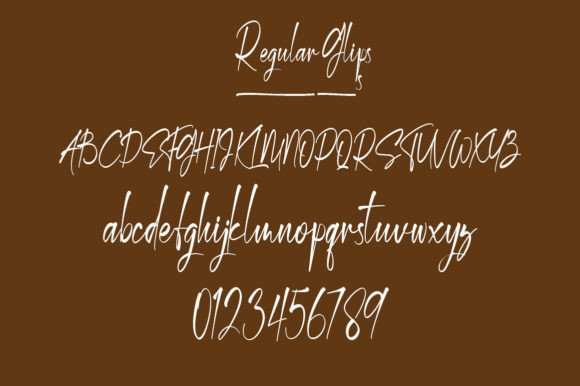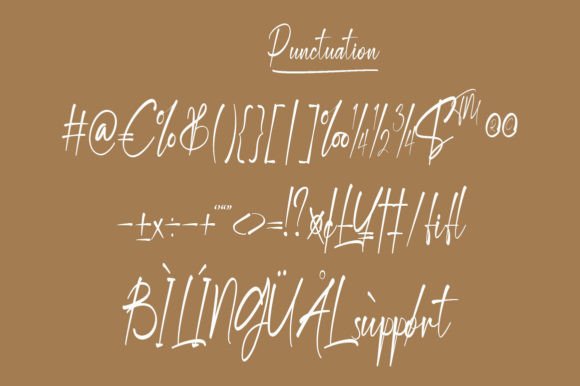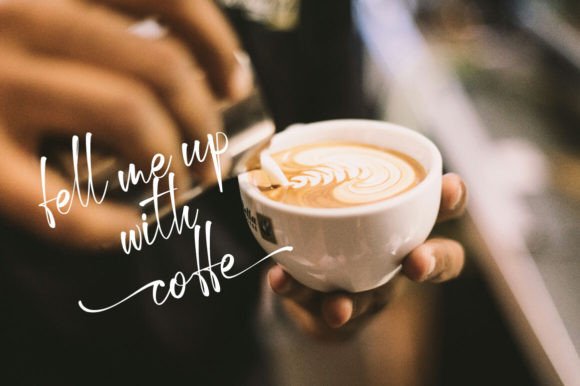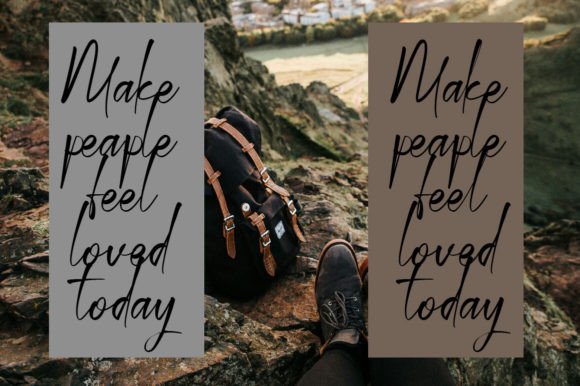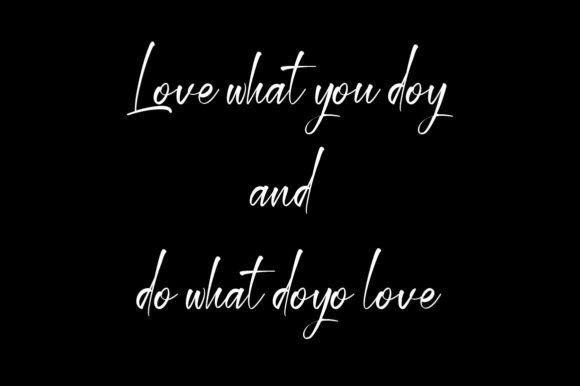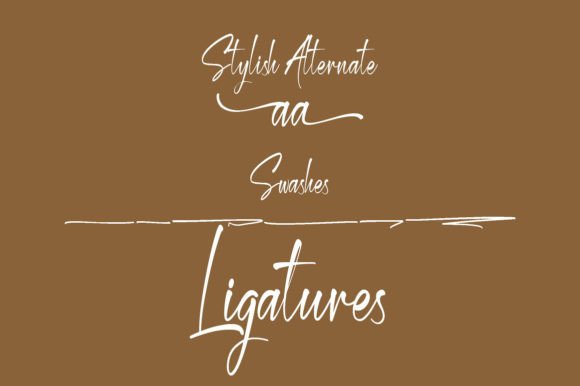
Introduction to Most Emotional Font
Have you ever stared at a blank canvas, struggling to find the perfect font to bring your creative project to life? I’m sure many designers can relate to that feeling of frustration, only to be rescued by a single, stunning font that makes everything click. For me, that font was Most Emotional – a dazzling script font that combines mystery with elegance.
Its intricate swirls and exquisite letterforms exude sophistication, making it the perfect design resource for luxurious branding, upscale invitations, and editorial design. And the best part? With its transparent background, it’s incredibly versatile, allowing designers to add a touch of high-quality elegance to any creative project. Whether you’re a seasoned pro or just starting out, Most Emotional Font is an invaluable asset to have in your design toolkit.
Key Features of Most Emotional Font
- Unique, hand-drawn design with intricate details, perfect for creative projects requiring a personal touch.
- High-quality font with transparent background, allowing for seamless integration into any design.
- Includes 300+ glyphs, including international characters and punctuation, making it a versatile design resource.
- High-resolution design (300 DPI) for crisp and clear display, even at larger sizes.
- Perfect for use in digital and print design, from posters and flyers to logos and branding materials.
Honest Review: Most Emotional Font
As a designer, I’m always on the lookout for unique and high-quality design resources to elevate my creative projects. Recently, I had the chance to work with the Most Emotional Font, and I must say, it’s a real showstopper.
- ✨ The font is incredibly expressive, with a range of emotive characters that add depth and personality to any design.
- ✨ The Most Emotional Font is incredibly versatile, working well in a variety of contexts, from logos to social media graphics.
- ⚠️ The font doesn’t have a transparent background option, which can make it tricky to use on complex designs.
- ⚠️ Some characters may require manual adjustment to achieve the desired emotional effect.
Overall, I’m really impressed with the Most Emotional Font. While it’s not perfect, its unique character and high quality make it a valuable addition to any designer’s toolkit. Whether you’re working on a creative project or just need a design resource, the Most Emotional Font is definitely worth checking out.
The Most Emotional Font is ideal for creative projects such as wedding invitations, social media graphics, and advertising materials. Its high-quality design and transparent background make it a versatile design resource that can be used in a variety of contexts.
To get the most out of the Most Emotional Font, experiment with different font sizes, colors, and effects to create a unique and eye-catching design. You can also use it in combination with other design resources such as images and graphics to create a cohesive and high-quality design.